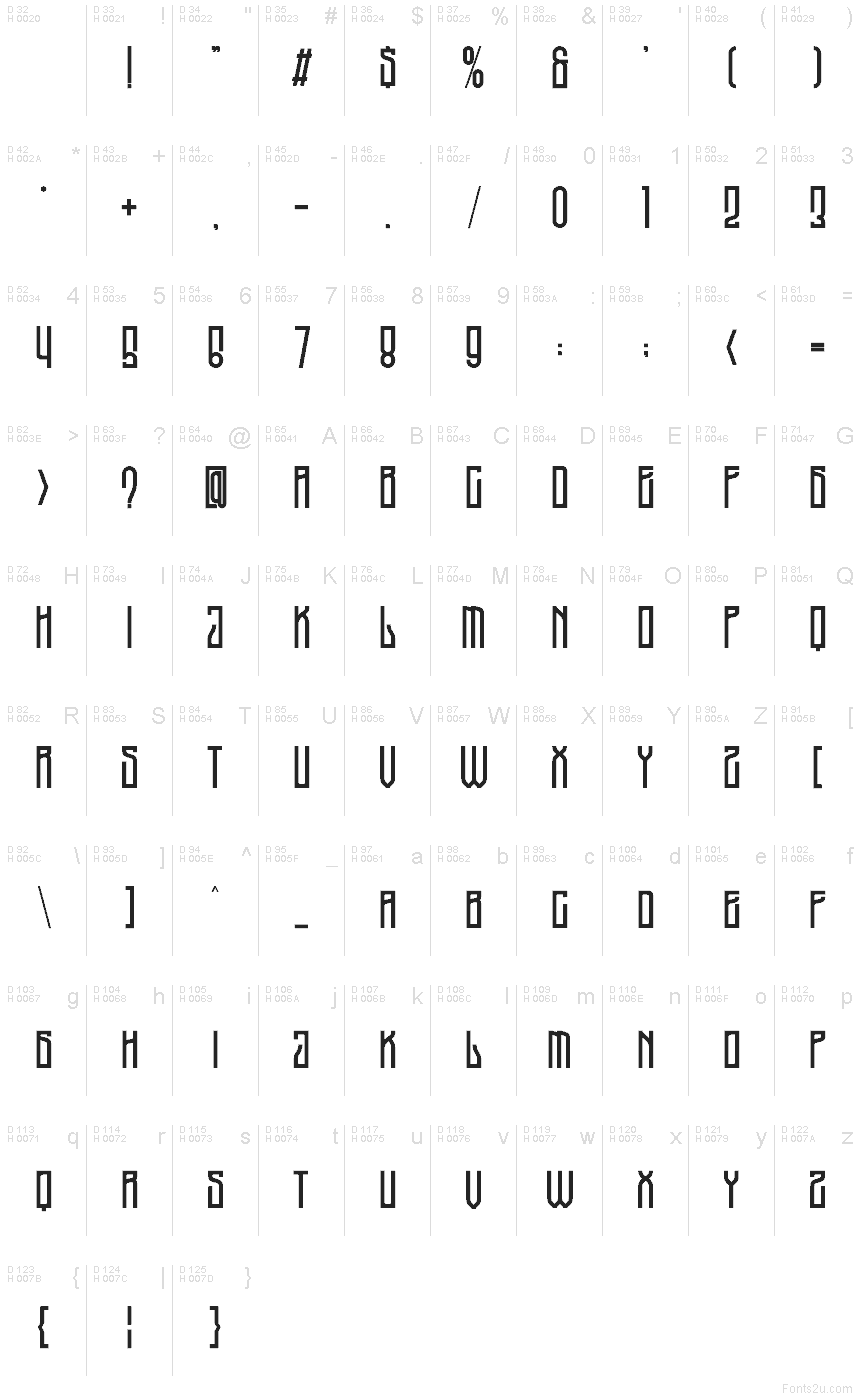
Gefalen
Gefalen font by Ermedia Studio is a free retro display font that leans hard into tall, blocky forms with clever, carved-out bends. Its defining move is the tight vertical rhythm—almost like stacked tiles—interrupted by sly curves that soften the grid just enough. The result feels Art Deco spliced with early sci‑fi: crisp, dense, and unmistakably bold at headline sizes.
Using Gefalen, you get instant impact for posters, album covers, gaming logos, event titles, apparel graphics, and futuristic signage. The narrow width makes long words stack neatly without losing punch, while the angular cuts keep letters readable at a glance. This free font shines when set large; add a touch of tracking for smaller uses. Pair it with a calm, modern sans (think a neutral grotesk) to balance the drama.